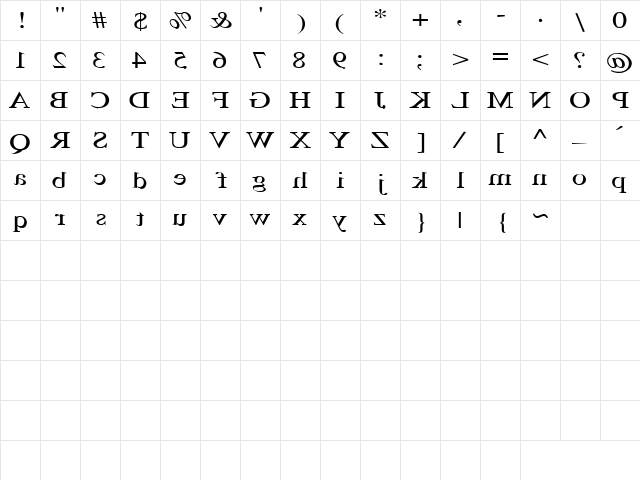
Chain 3 Regular
Design Context for Chain 3
Chain 3 is a composed and adaptable typeface that performs quietly and consistently across a wide range of design contexts.